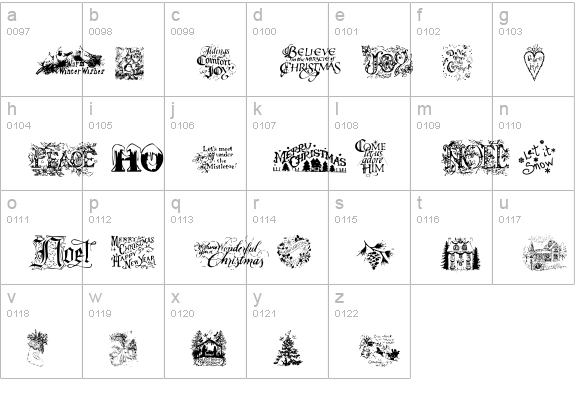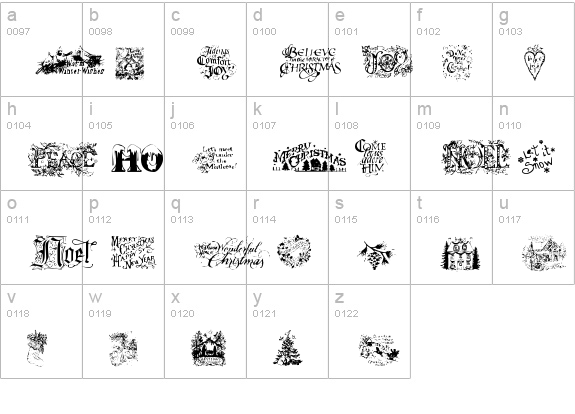
Christmas Cheer Font Details
Introducing Christmas Cheer, a delightful and festive font that encapsulates the spirit of the holiday season. This font is the perfect companion for all your Christmas-themed designs, whether it's greeting cards, invitations, posters, or social media graphics. Christmas Cheer boasts a playful and whimsical style, with each letter adorned with charming holiday-themed elements. From twinkling ornaments to candy canes, this font brings an extra touch of joy and merriment to your designs. But what makes Christmas Cheer even more special is that it is completely free! Yes, you read that right. This delightful font is freely available to download at FontsMarket.com. We believe that spreading Christmas cheer should be accessible to all, and that's why we've made this font available to everyone, without any cost. With Christmas Cheer, you'll be able to add that extra dose of festive charm to your projects, without breaking the bank. So go ahead and download this font today, and let the Christmas spirit shine through your designs. Spread the joy and bring smiles to faces with Christmas Cheer font, available for free at FontsMarket.com.